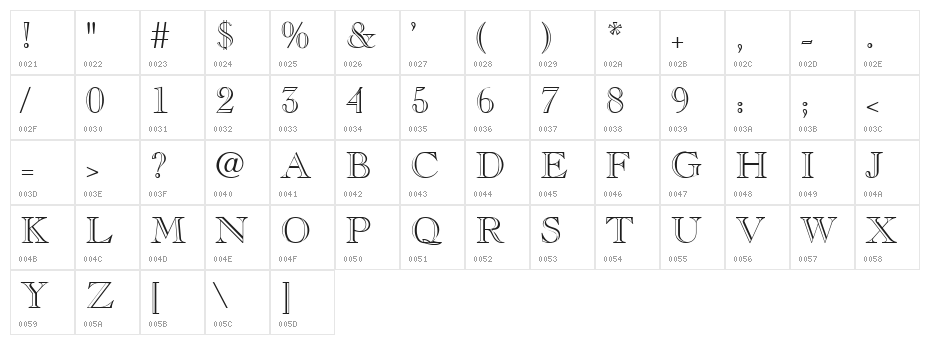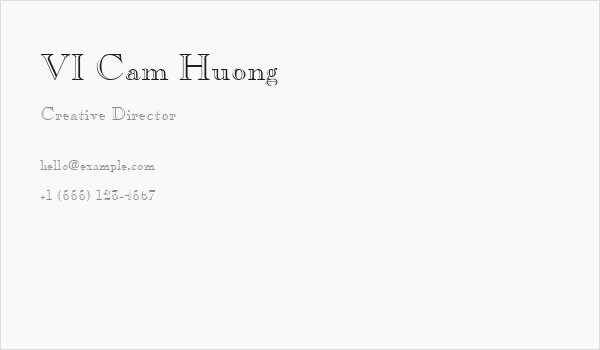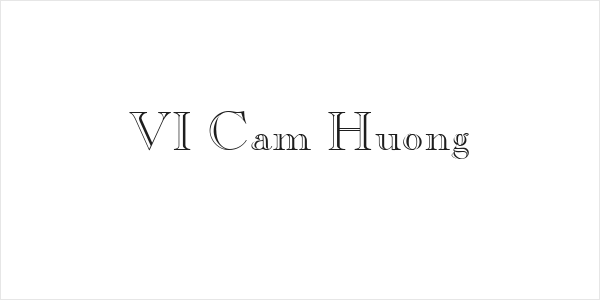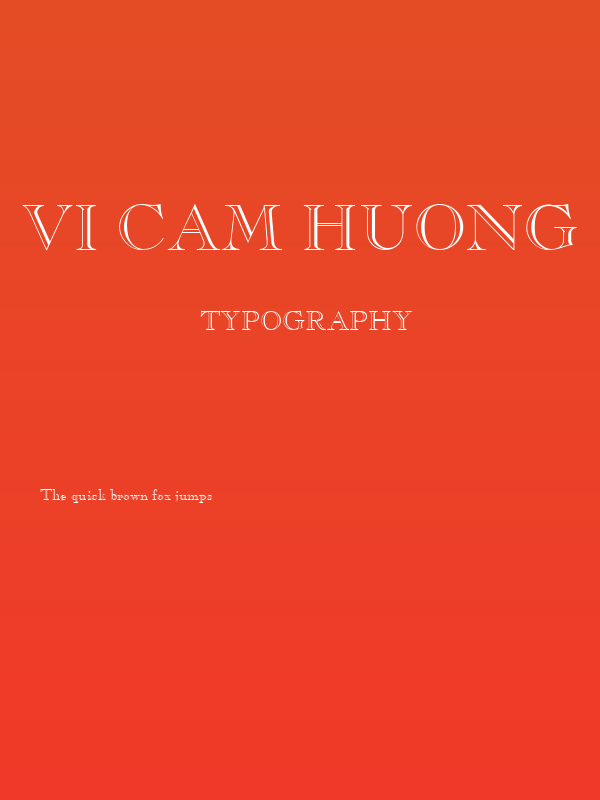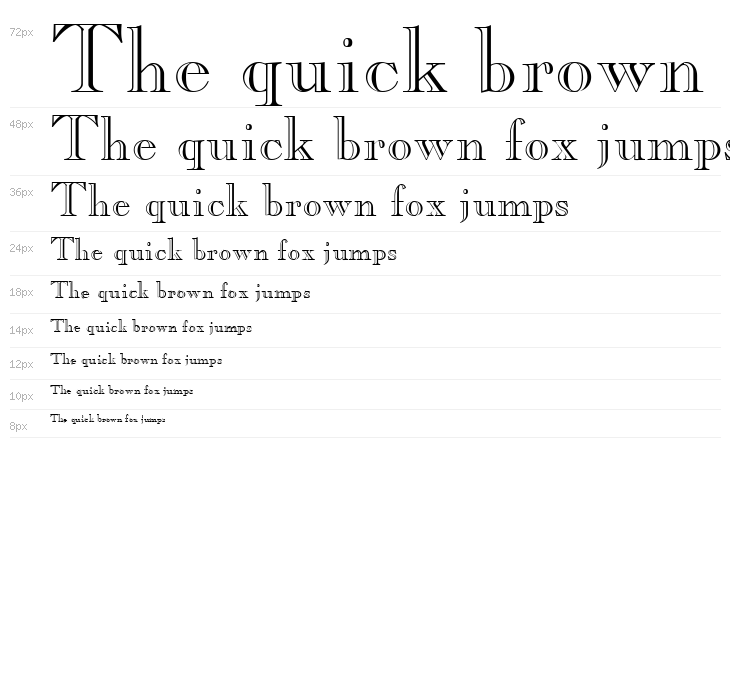
VI Cam Huong Font
VI Cam Huong Description
This font features a classic serif style with a modern twist, characterized by its elegant and refined letterforms. The uppercase letters exhibit a strong presence with distinct serifs and a slight contrast in stroke thickness, giving them a sophisticated and timeless appeal. The lowercase letters maintain a harmonious balance with their uppercase counterparts, showcasing a graceful and fluid design. The numerals are well-proportioned and align seamlessly with the overall aesthetic, while the special characters add versatility and functionality. This font's clean lines and subtle details make it suitable for a wide range of applications.